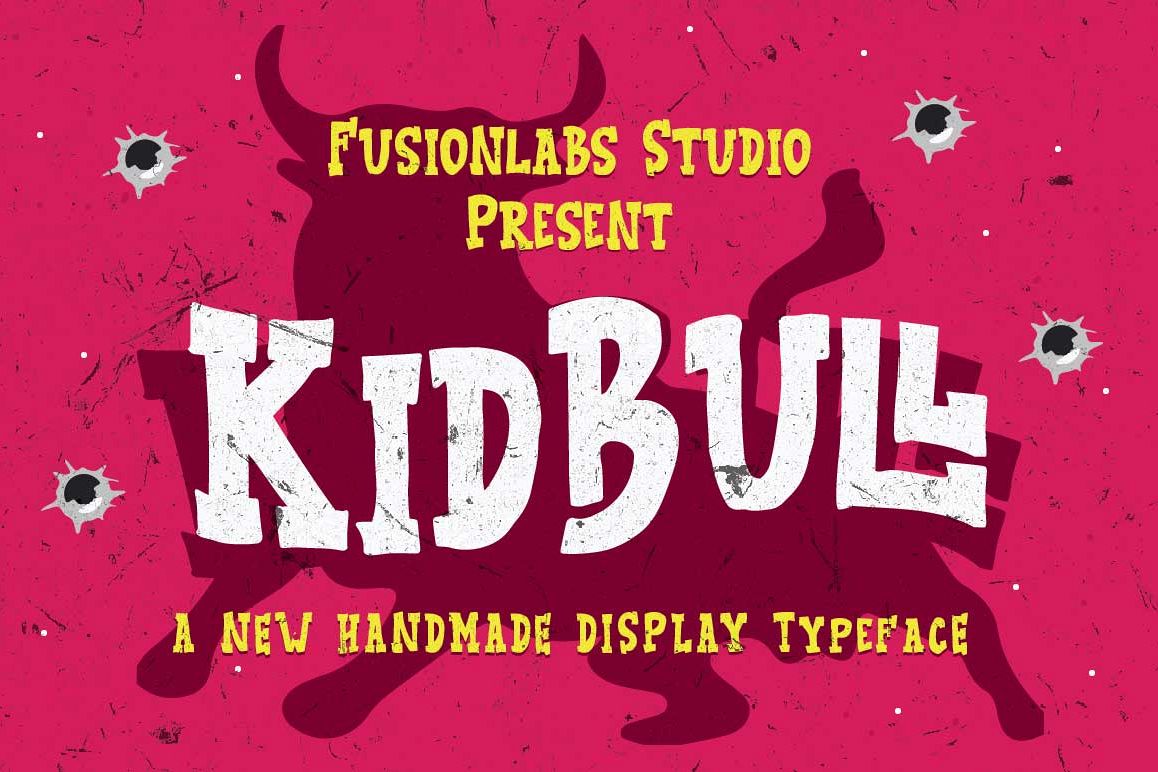
KidBull Typeface
This font was inspired by the old poster and vintage labels. With some retro, fun and playful handmade. This font was made entirely by hand. Hope you like it!
This font is perfect for something that carries cartoon themes, children's books, funny greeting cards, food package designs, simple logotype, t-shirt design, bottle label, games application name, vintage poster or abstract images and many moreFiles Included :